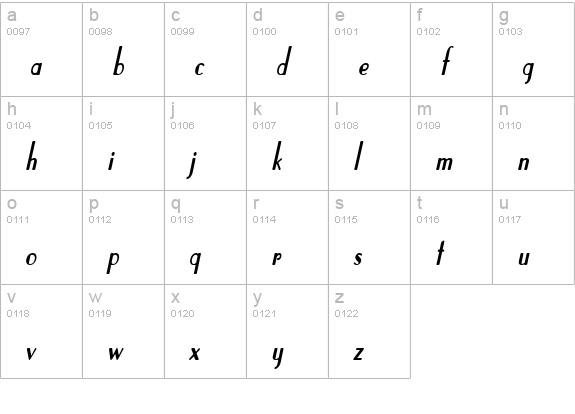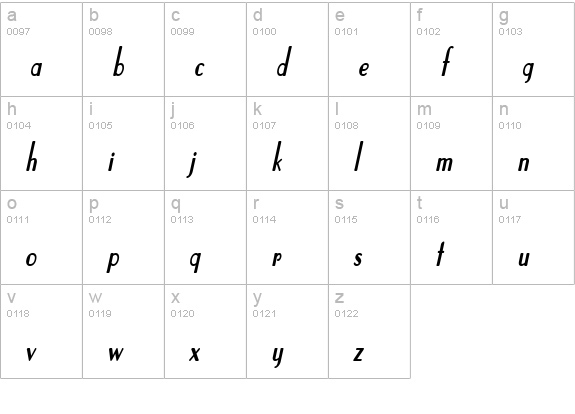
Paris Condensed Bold Italic Font Details
Paris Condensed Bold Italic is a strong, high-contrast, condensed-width, italic variant in the Paris typeface family \xE2\x80\x94 well suited to headlines, attention-grabbing titles, and strong calls-to-action.
Paris Condensed Bold Italic is a stylish and sophisticated font that effortlessly exudes elegance and refinement. With its sleek and slender letterforms, this font captures the essence of modernity and sophistication. The bold and italicized design adds an extra touch of flair and drama, making it perfect for creating eye-catching headlines, logos, and branding materials. This font is not only visually stunning but also highly versatile. Its condensed nature allows for maximum impact in limited spaces, making it ideal for use in editorial layouts, advertisements, and packaging designs. The bold and italic styles provide a bold statement, while the condensed form ensures legibility, even at smaller sizes. One of the best aspects of Paris Condensed Bold Italic is that it is freely available to download at FontsMarket.com. This means that you can access this incredible font without any cost, making it a great choice for designers on a budget. Whether you are a professional designer or a hobbyist, this font is a valuable addition to your collection. With its stunning aesthetics and its ability to convey a sense of modern elegance, Paris Condensed Bold Italic is a font that is sure to make a lasting impression. Download it for free at FontsMarket.com and elevate your design projects to new heights of sophistication and style.